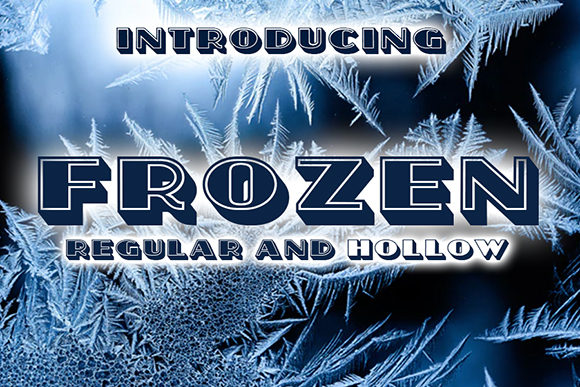
Embark on a whimsical journey through time with Frozen Font, a decorative masterpiece that evokes the timeless charm of a bygone era. Frozen's playful nostalgia transports you to a realm of vintage dreams, where every design transforms into a retro masterpiece.
Unleash your creativity and let Frozen's enchanting aura add a touch of the past to your modern creations. From vintage-inspired T-shirts to captivating posters and beyond, Frozen's versatility knows no bounds. Its nostalgic elegance will effortlessly elevate any design to new heights of sophistication.
Immerse yourself in the allure of a forgotten era and let Frozen's decorative strokes ignite your imagination. Whether you're a seasoned designer or a novice seeking a touch of vintage magic, Frozen is your passport to a world of creative possibilities.
Embrace the captivating essence of Frozen Font today and embark on an unforgettable typographic adventure!